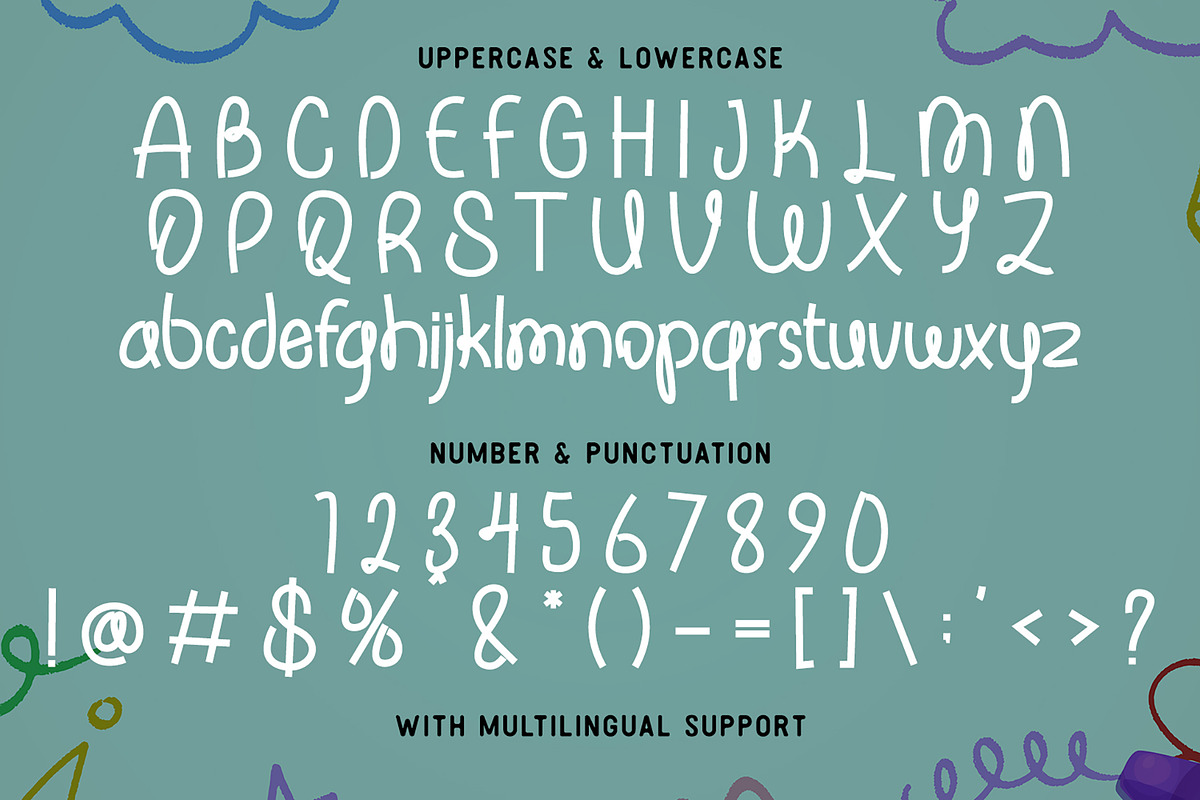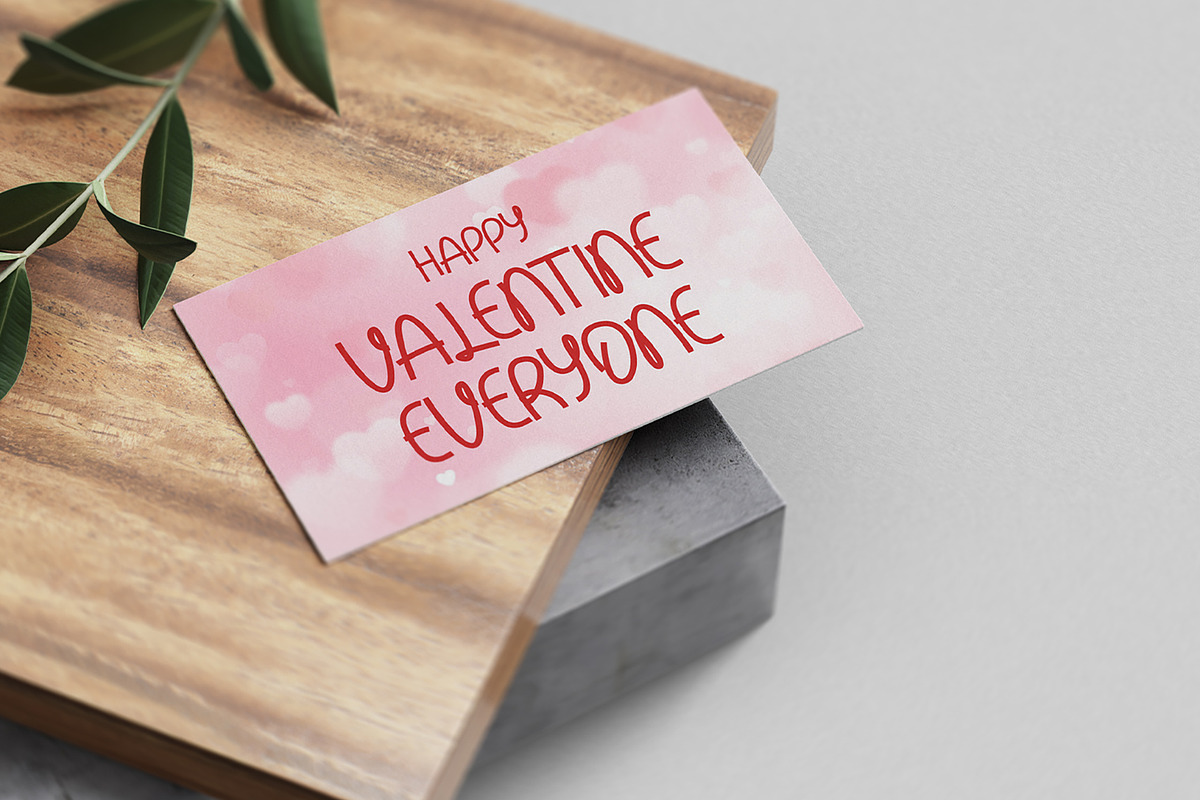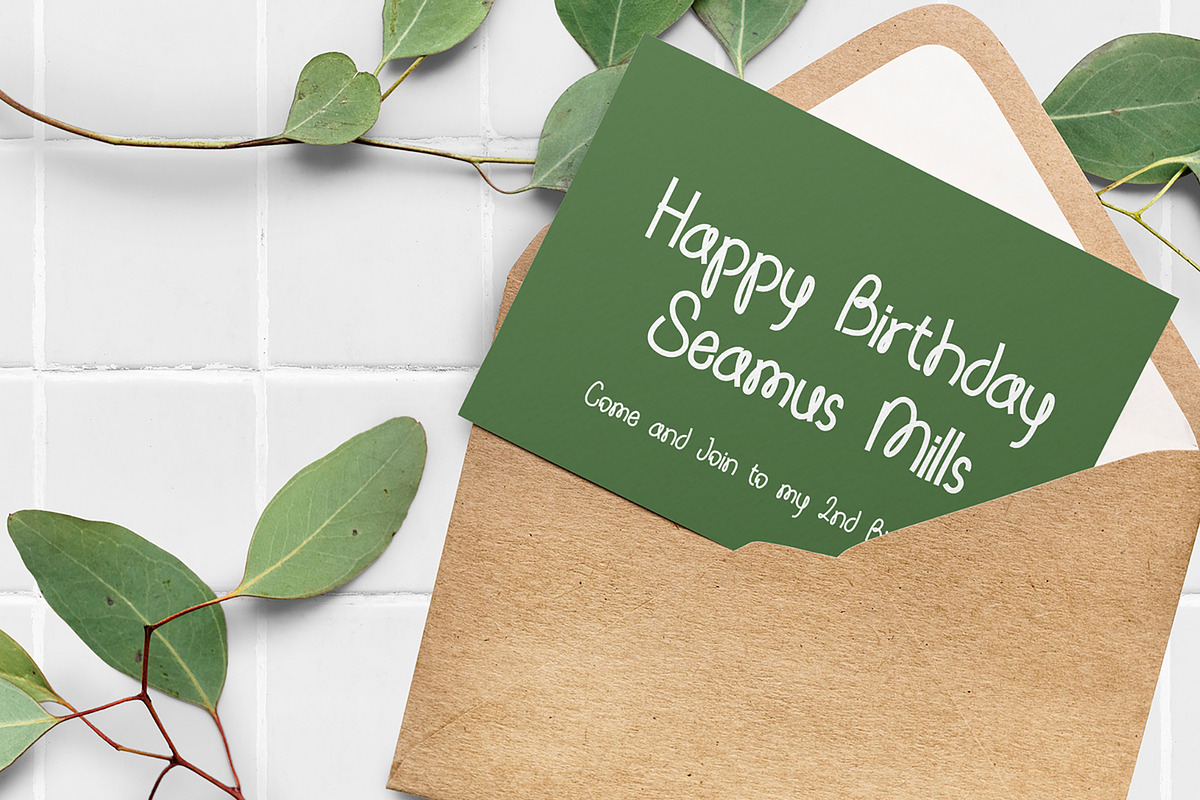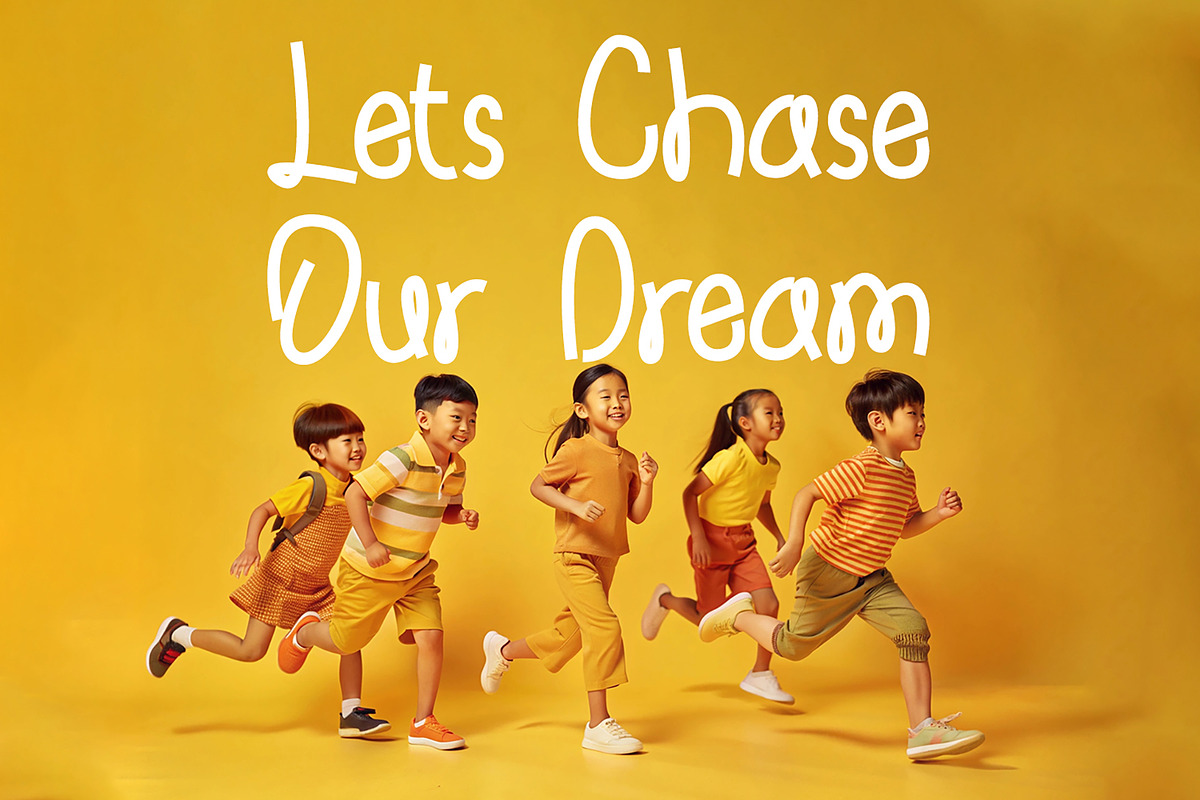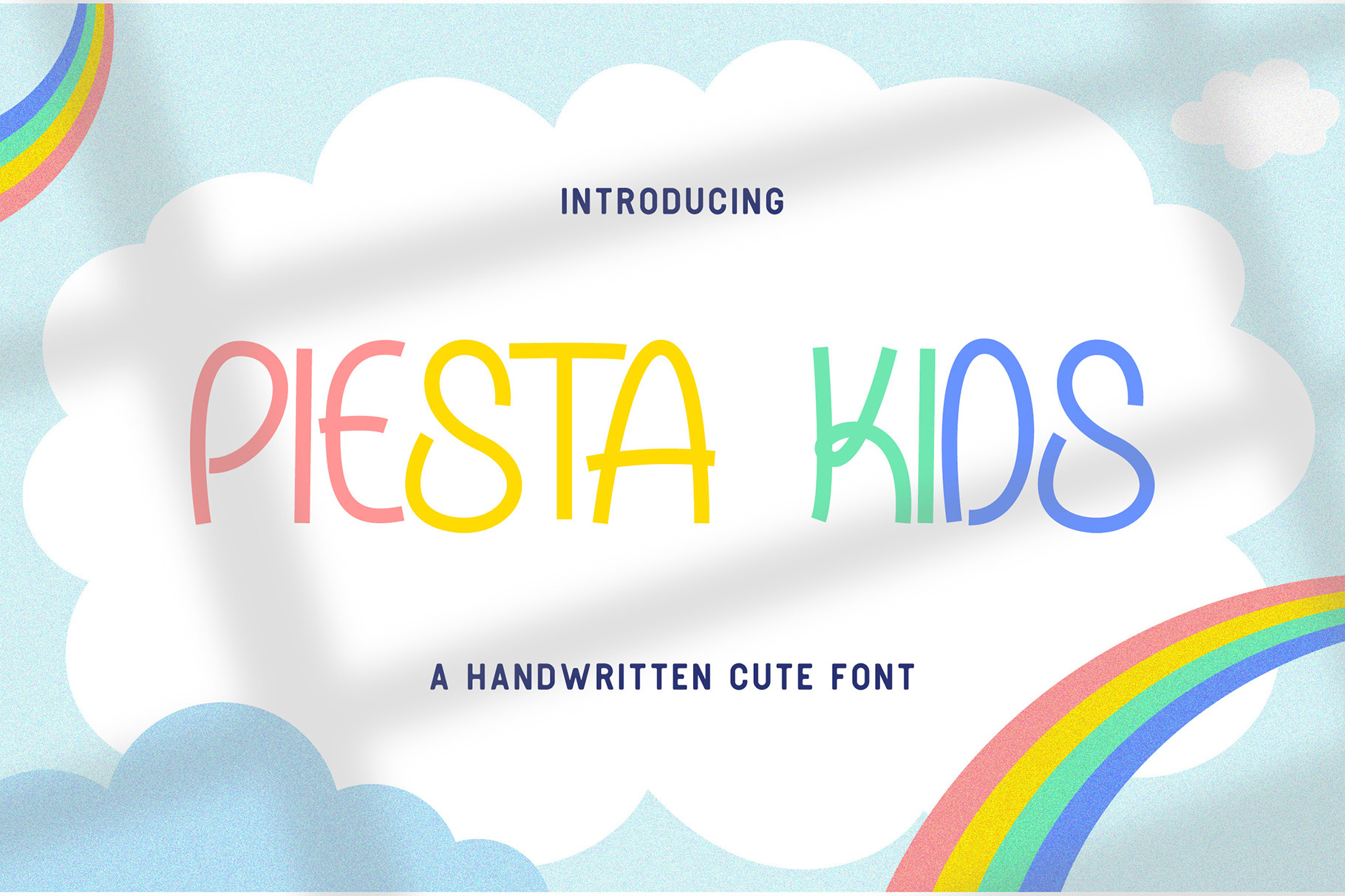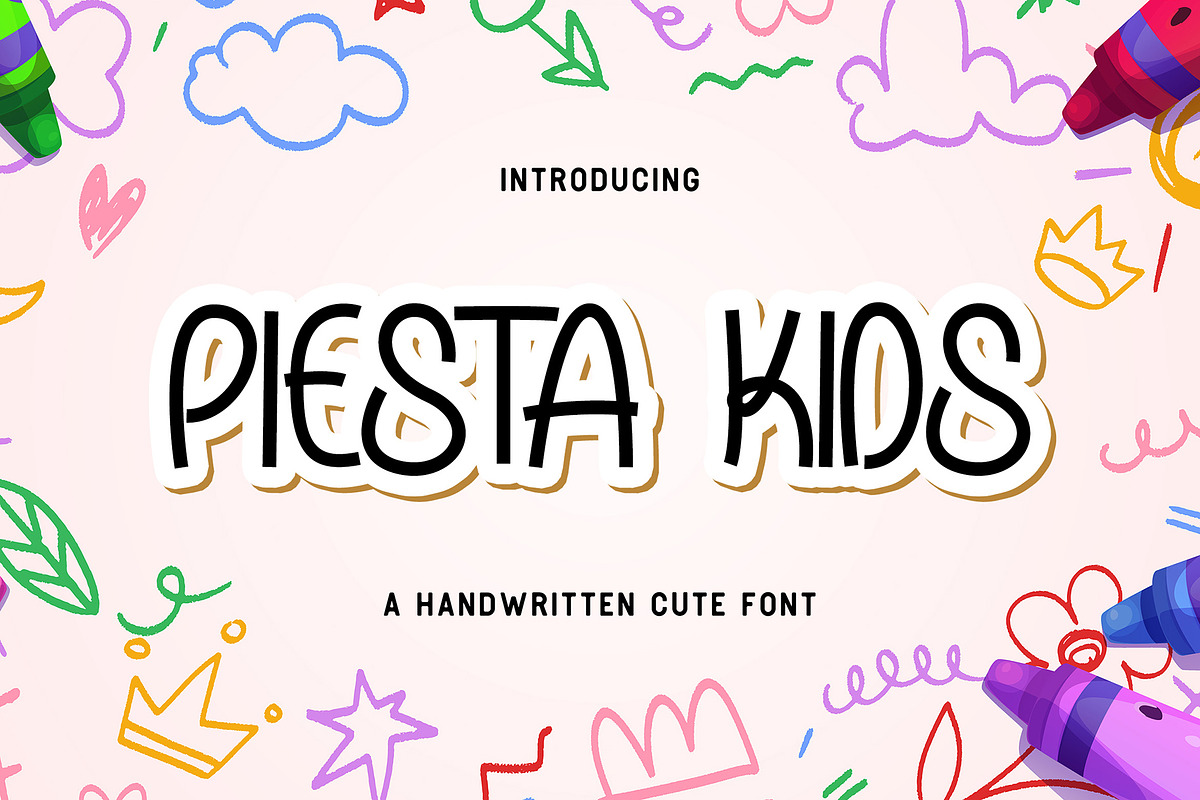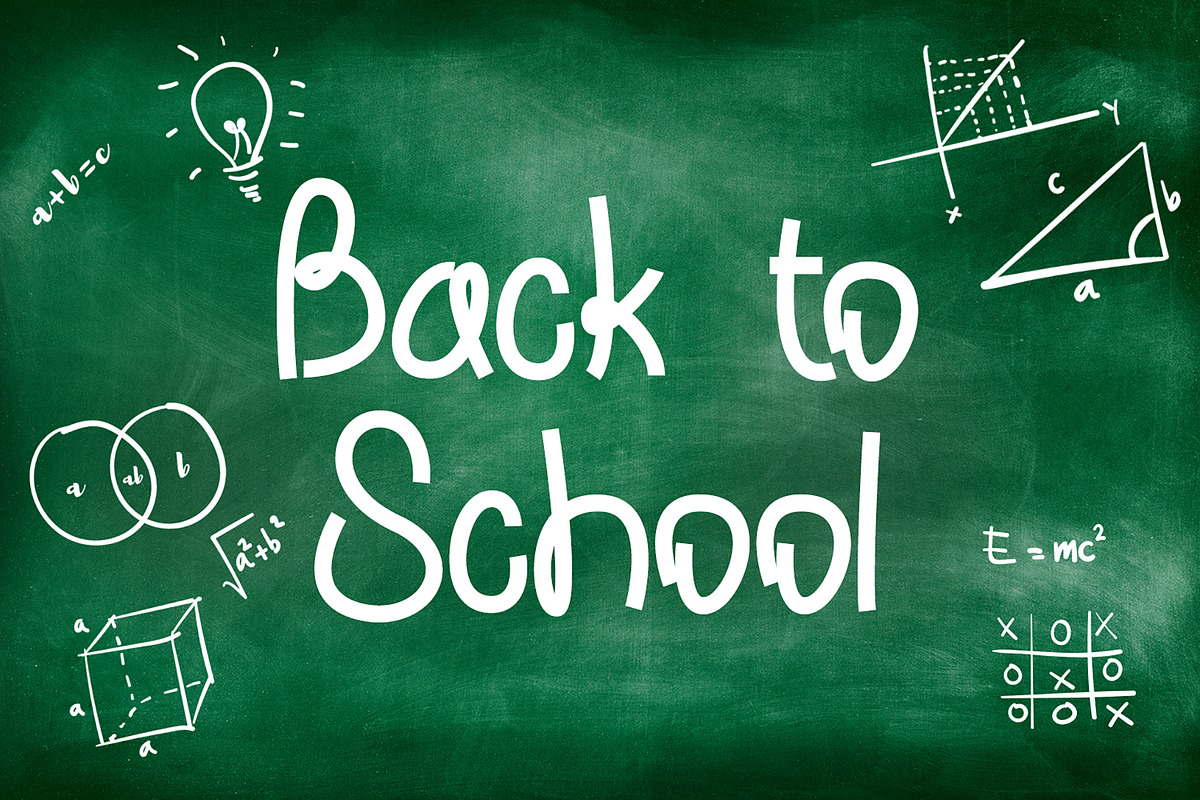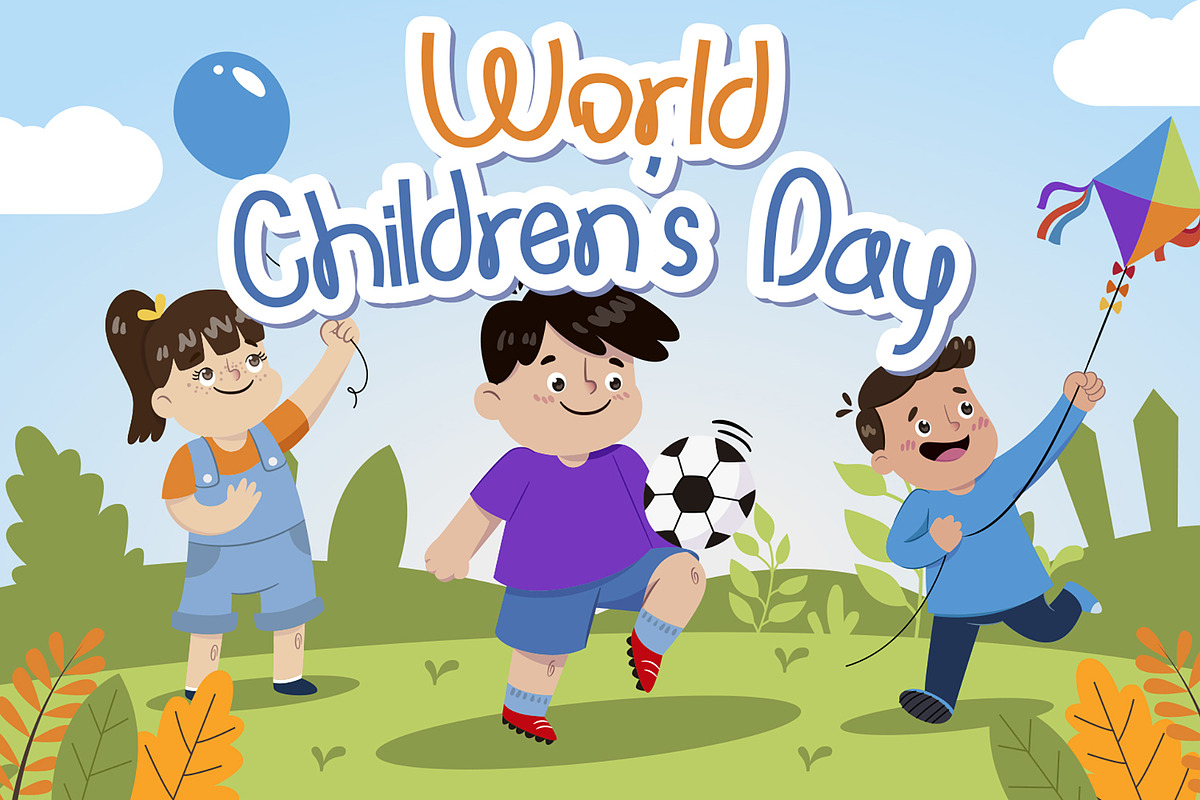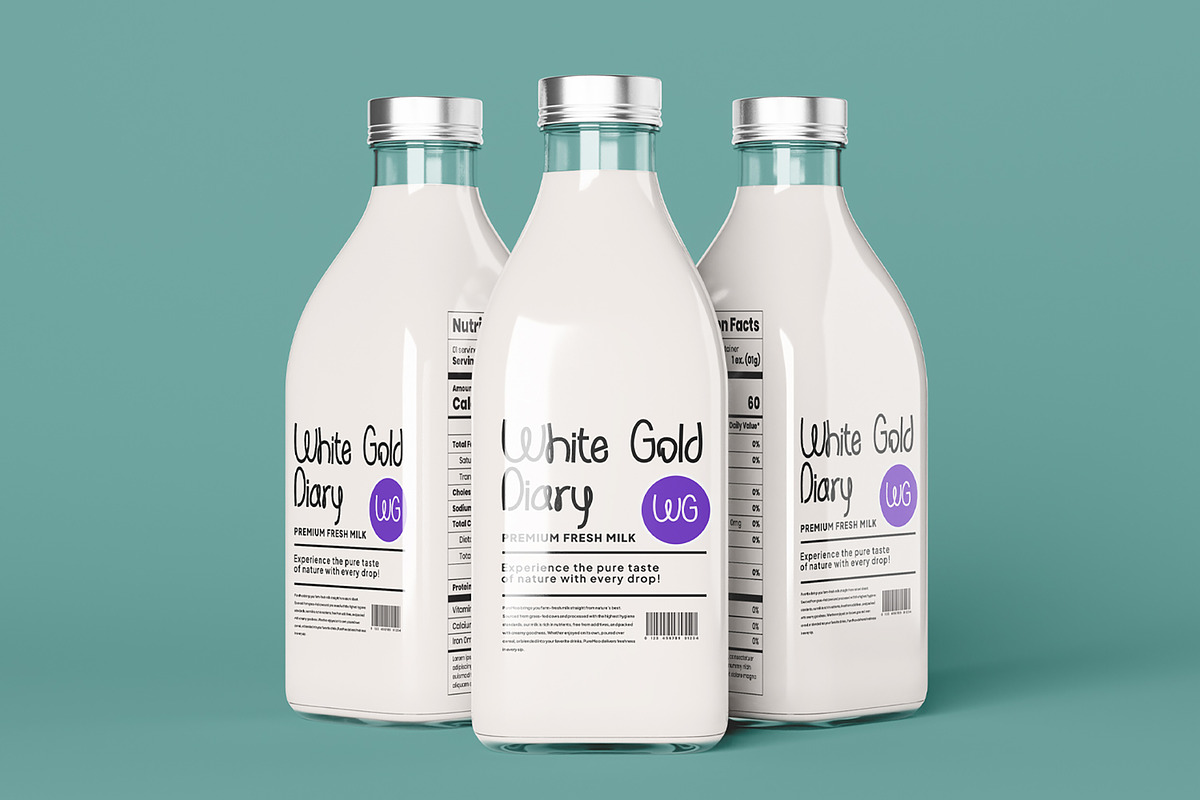
Piesta Kids - Playful Cute Font
Piesta Kids - Playful Cute Handwritten Font
Playful & Cute - Monoline Handwritten Display Font
Perfect for Logotype, brand logo, apparel design, clothing, fashion, creative industry, signature, headline/title on poster, brochure, packaging, wedding invitation, quotes, magazine, social media etc.